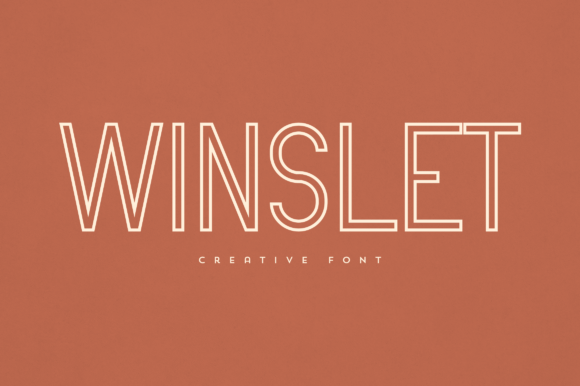
Introducing Winslet: The Font That Turns Your Words into a Work of Art
In a world where every word carries meaning, choose the font that elevates your message beyond the ordinary. Winslet, the sans serif font crafted by vladfedotovv, is a symphony of elegance and versatility, transforming your typography into a breathtaking spectacle. Let Winslet seduce your logo, branding, headlines, or simple text, and watch as it weaves its magic, leaving your audience spellbound.
Immerse yourself in the world of Winslet and discover a font that dances across your screen like a ballerina, its curves and strokes harmonizing in perfect unity. Each character is meticulously designed to evoke a sense of sophistication and charm, ensuring that your words captivate and inspire. With its timeless appeal, Winslet transcends the boundaries of time, adding a touch of grace and allure to any project.
Unleash your creativity and embark on a typographical journey where Winslet takes center stage. Whether you're a designer crafting a captivating logo, a marketer weaving words into persuasive headlines, or a blogger seeking to leave a lasting impression, Winslet is your muse. Its versatility knows no bounds, adapting seamlessly to homeware designs, product packaging, and magazine headers. Transform the ordinary into the extraordinary, as Winslet elevates your designs to new heights.
With Winslet by your side, you possess the power to turn any background image into a breathtaking canvas. Its characters dance across the screen, harmonizing effortlessly with your chosen visuals, creating a visual symphony that captures attention and ignites imagination. Let Winslet be your guiding light as you embark on a journey of visual storytelling, where your words and images intertwine to create an unforgettable experience.
Join the growing community of creatives who have embraced Winslet as their font of choice. Witness the transformation as your designs take on a life of their own, captivating audiences with their elegance and poise. Don't settle for ordinary fonts that blend into the background. Choose Winslet, the font that commands attention and leaves a lasting impression.